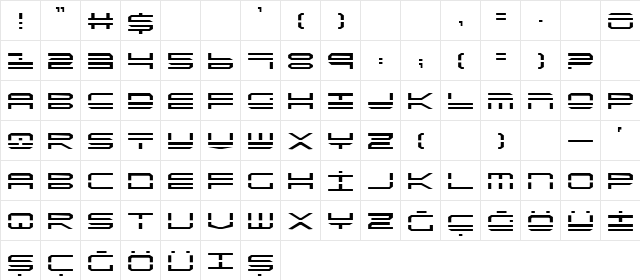
PCLifeQuickStrike Regular
Design Context for PCLifeQuickStrike Typeface
PCLifeQuickStrike is a composed and adaptable typeface that performs quietly and consistently across a wide range of design contexts.